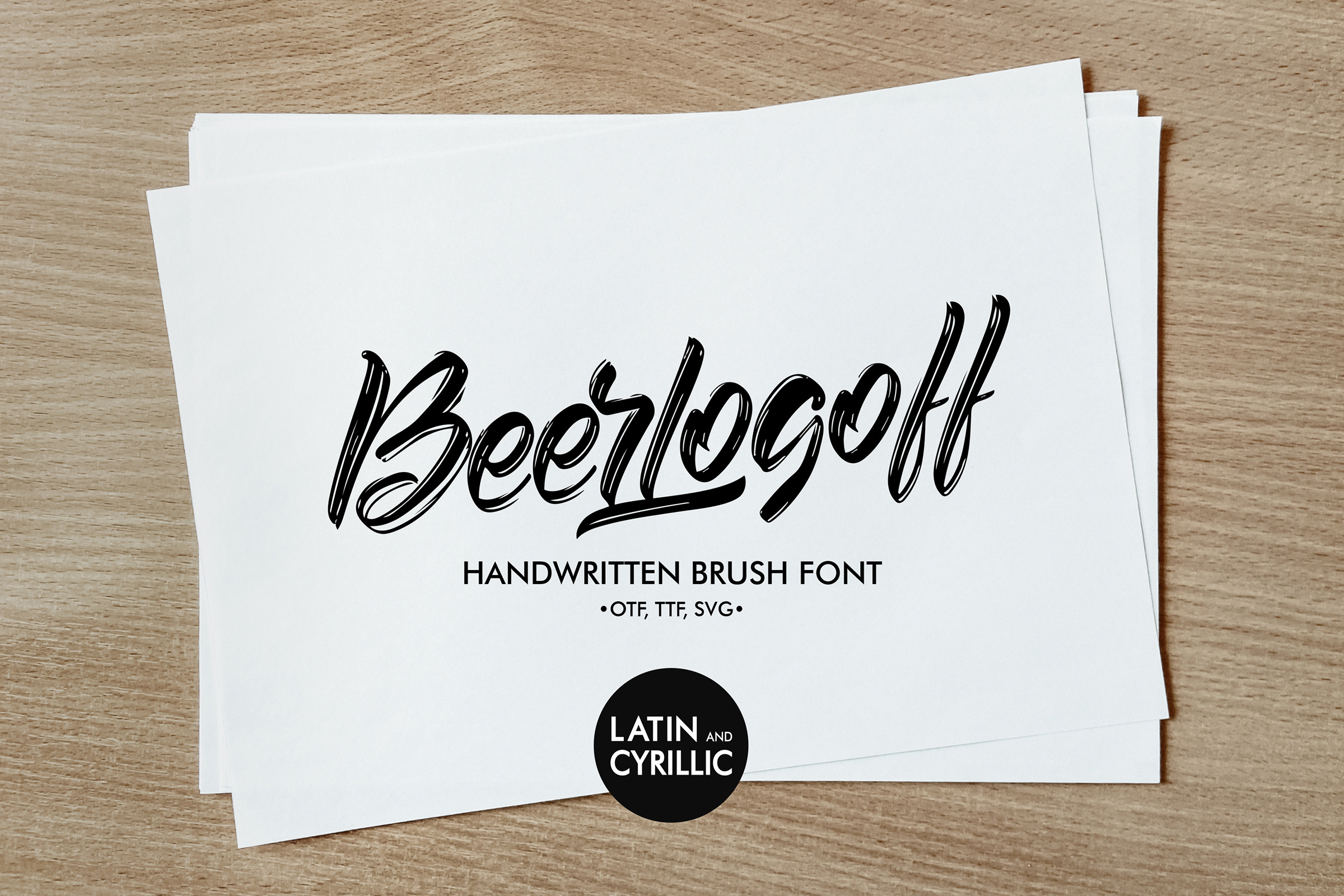
Beerlogoff. Latin and Cyrillic Font.
Beerlogoff - new fresh Handwritten brush font. Hand drawn textured Latin and Cyrillic Font for Calligraphic lettering, headlines, posters, Logos, t-shirt designs, handwritten phrases, inscriptions for greeting cards and so much more.
This Font Support English, Ukrainian and Russian languages.